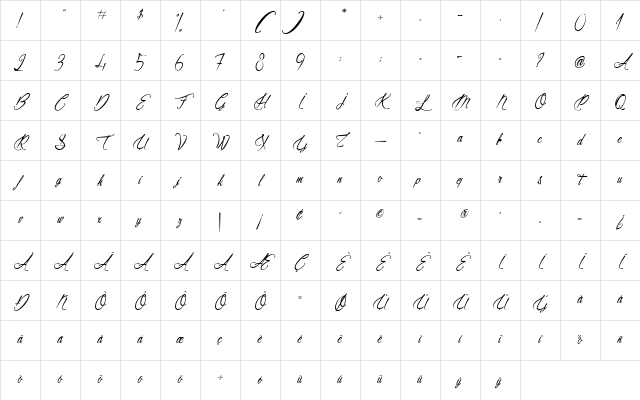
Alicia on the enchanted Highlands Italic Free Font
Alicia on the enchanted Highlands Italic
Foundry: Maelle.K
Designer: Maelle.K
Design Context for Alicia on the enchanted Highlands
Alicia on the enchanted Highlands is a composed and adaptable typeface that performs quietly and consistently across a wide range of design contexts. The slanted form adds forward momentum and visual energy.
Pro Tip: Use Alicia on the enchanted Highlands for emphasis, pull quotes, and subheadings where its slanted energy can add rhythm to the layout.